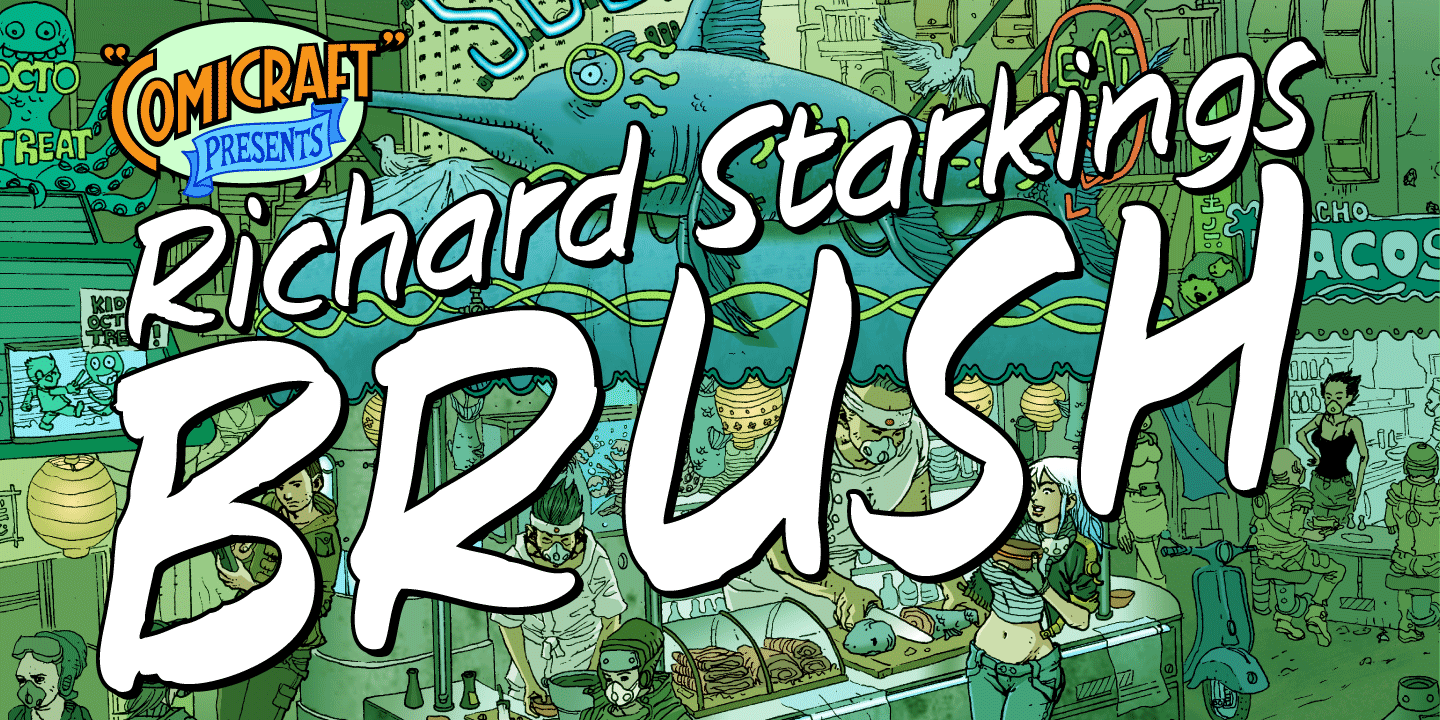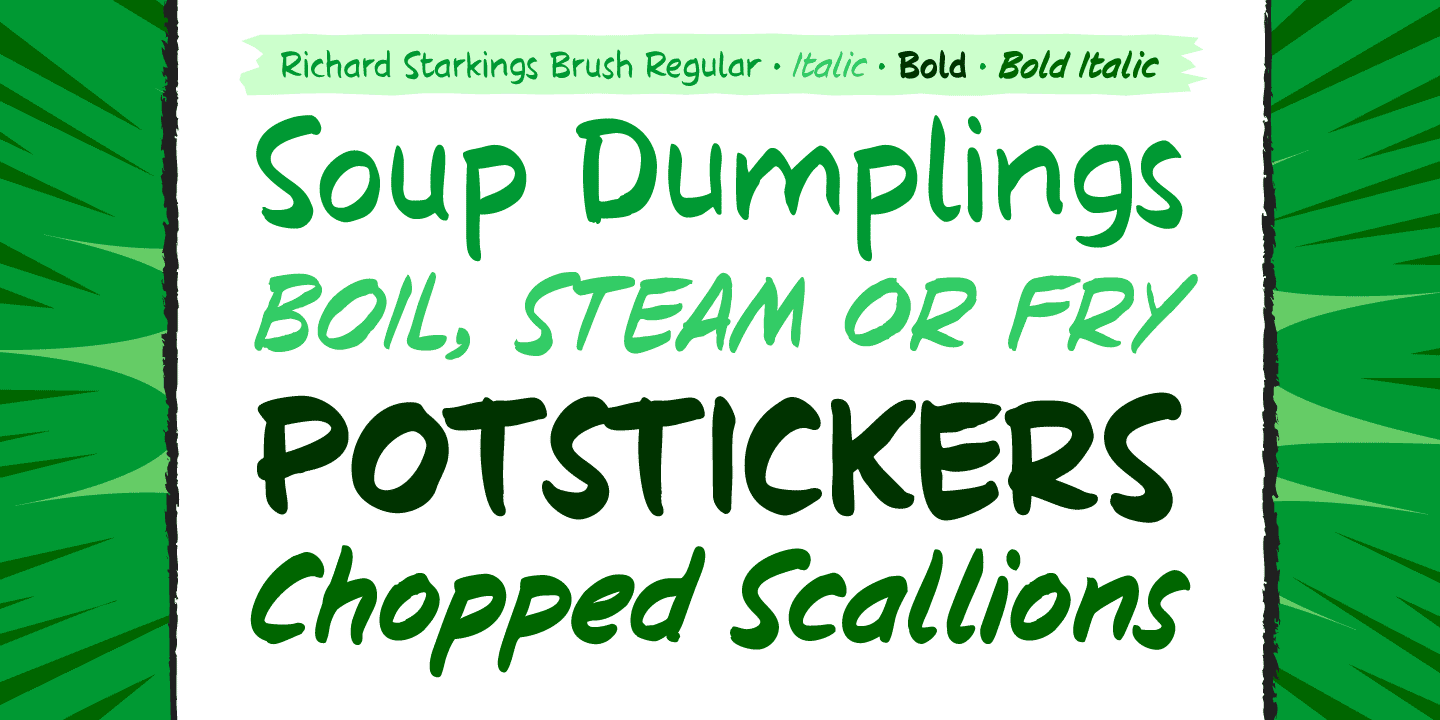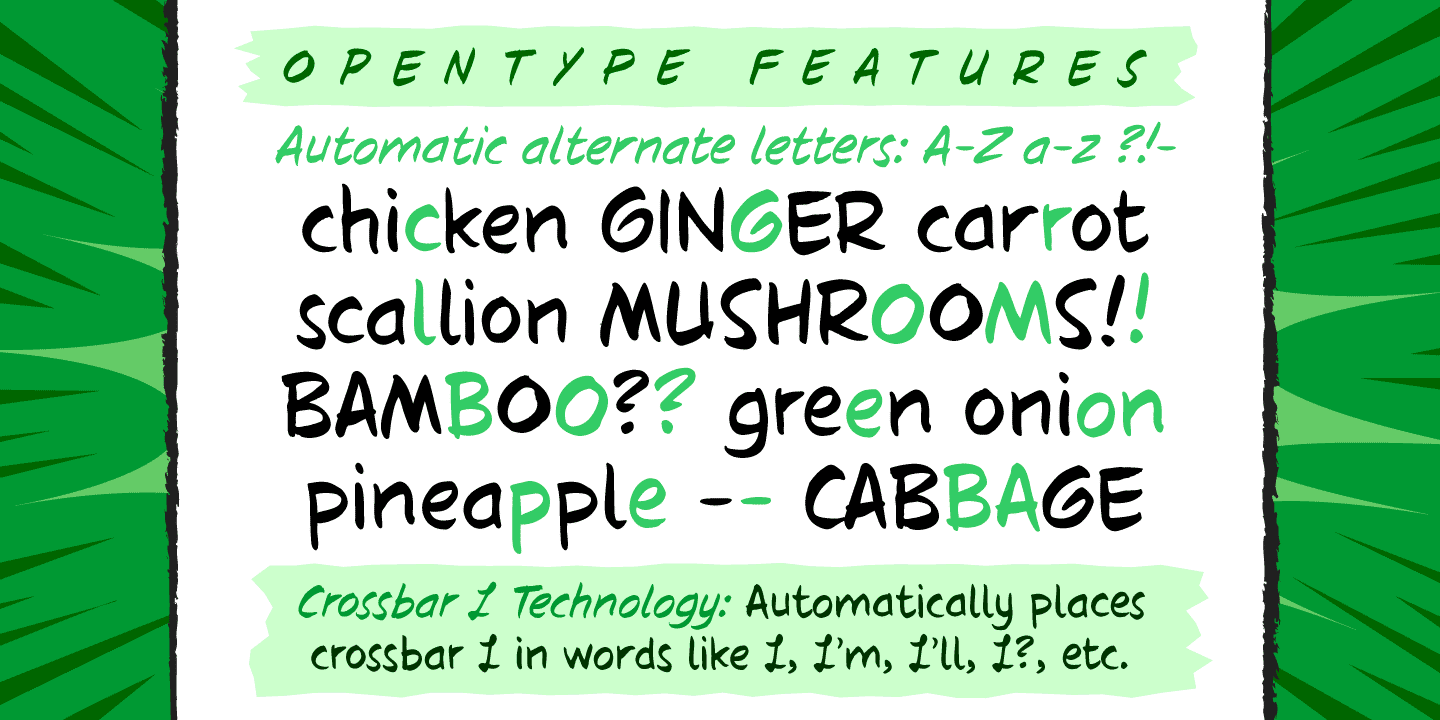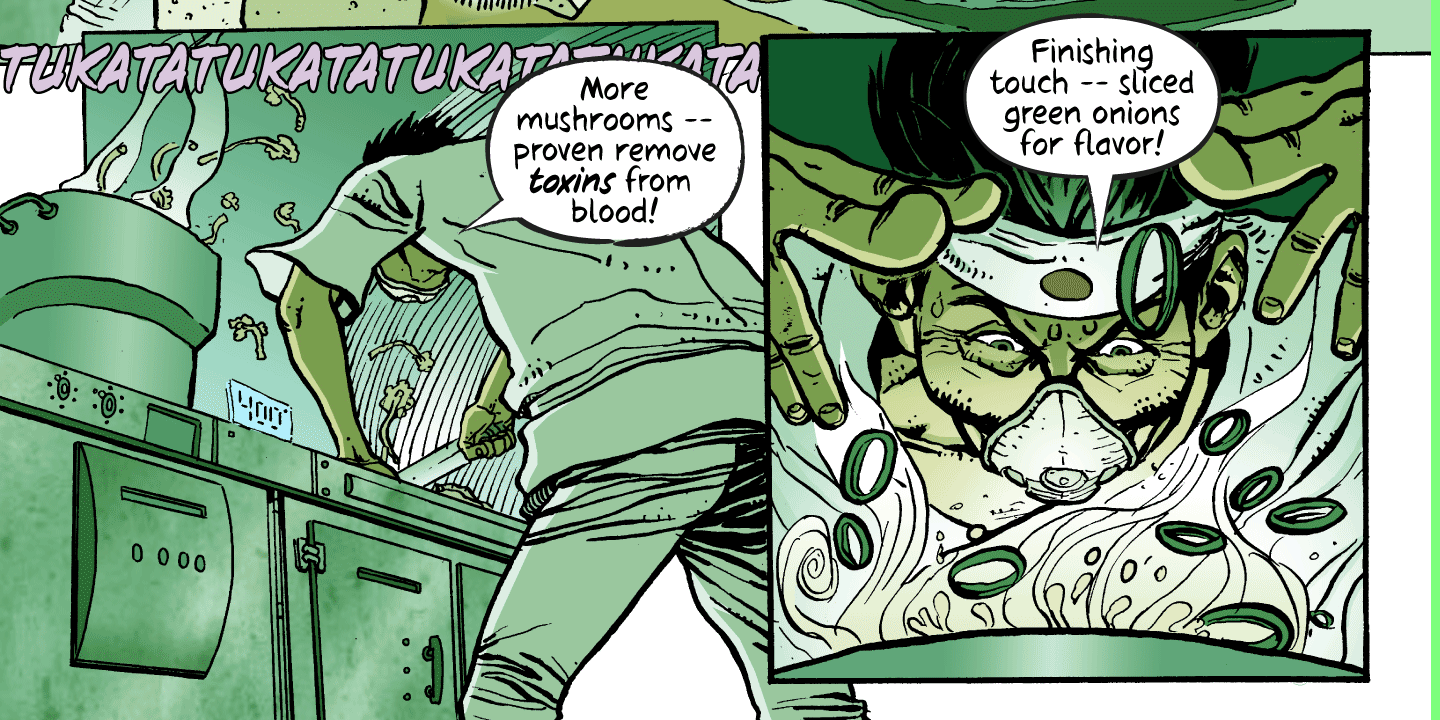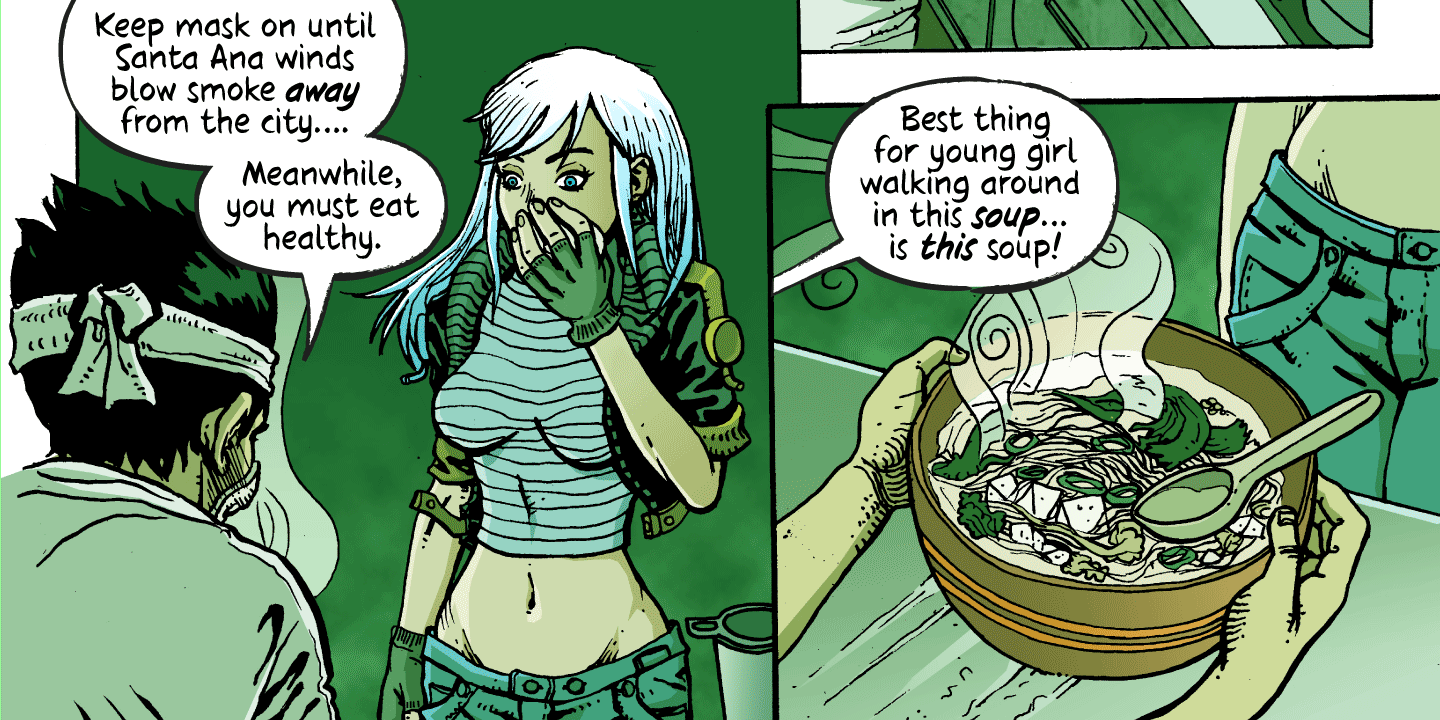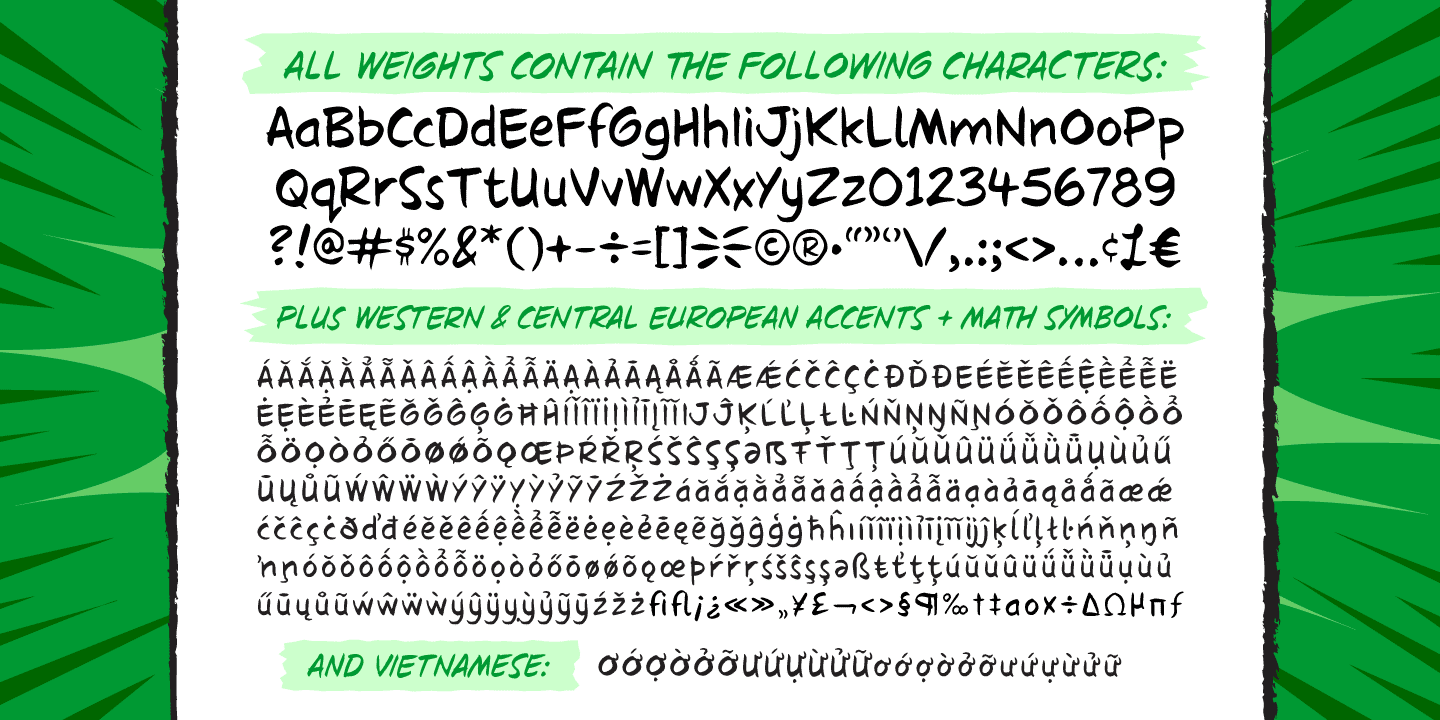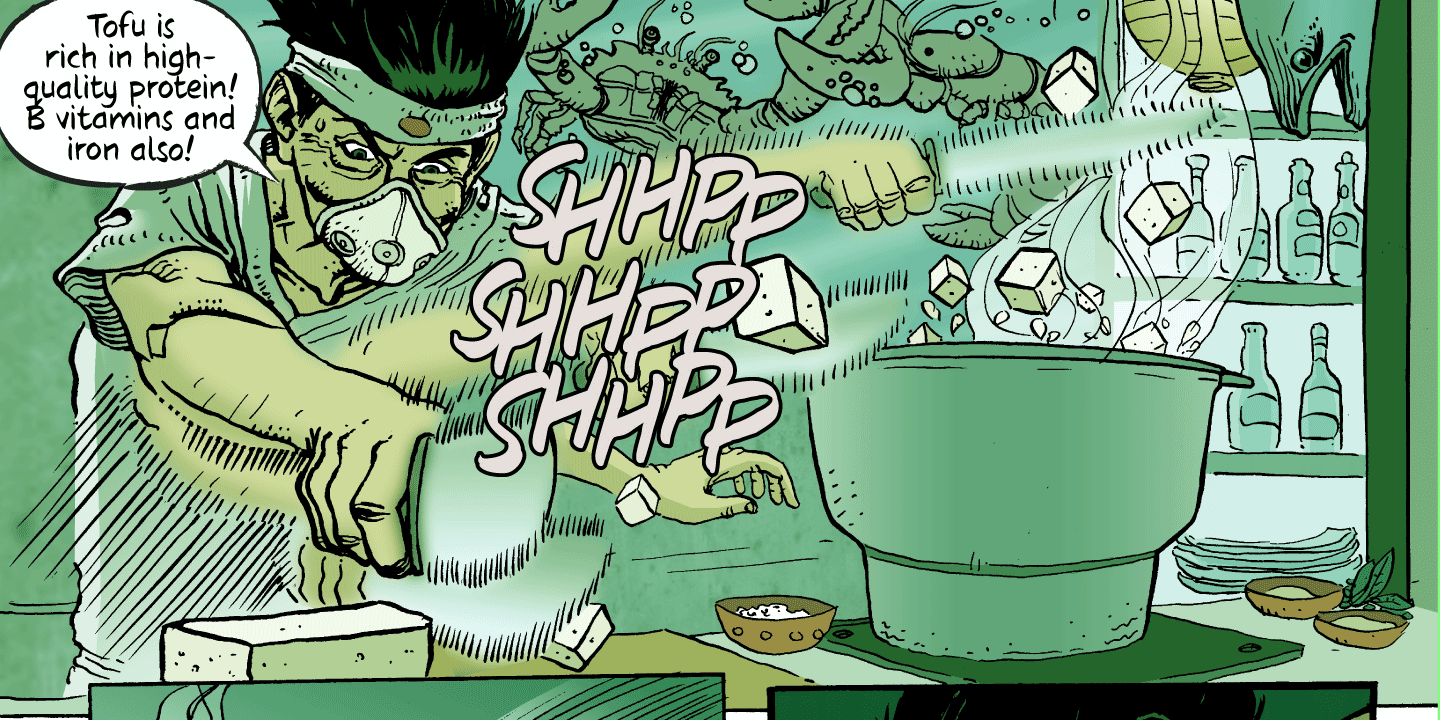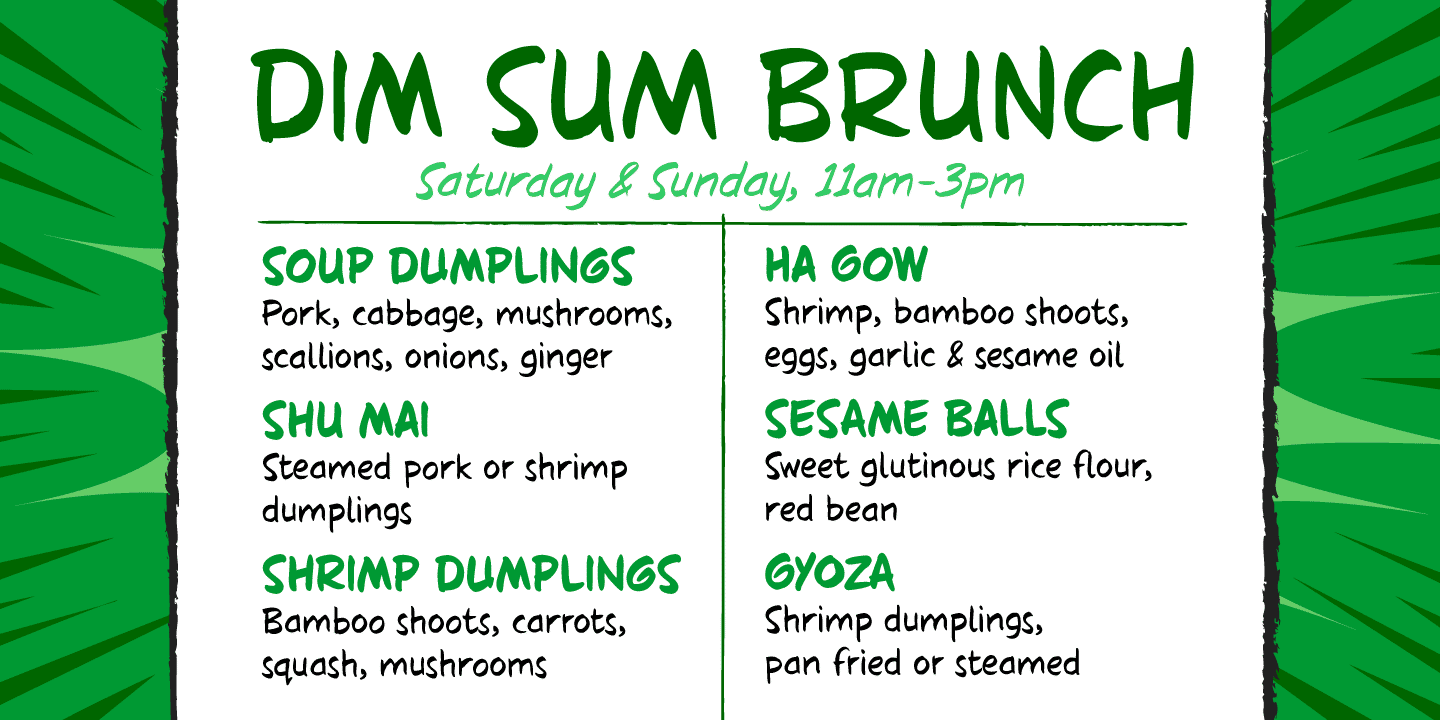
Richard Starkings Brush
Font Family by Comicraft Fonts
If you're looking for lettering that's a little fancy-schmancy, a little stylish, lively and free flowing, comic book lettering legend Richard Starkings has a bold, bodacious and exciting pen style for your font library! Richard Starkings Brush is exuberant and yet also quietly confident -- originally rendered with a Brush Pen, this slick new addition to the Comicraft library puts the Flam in Flamboyant.